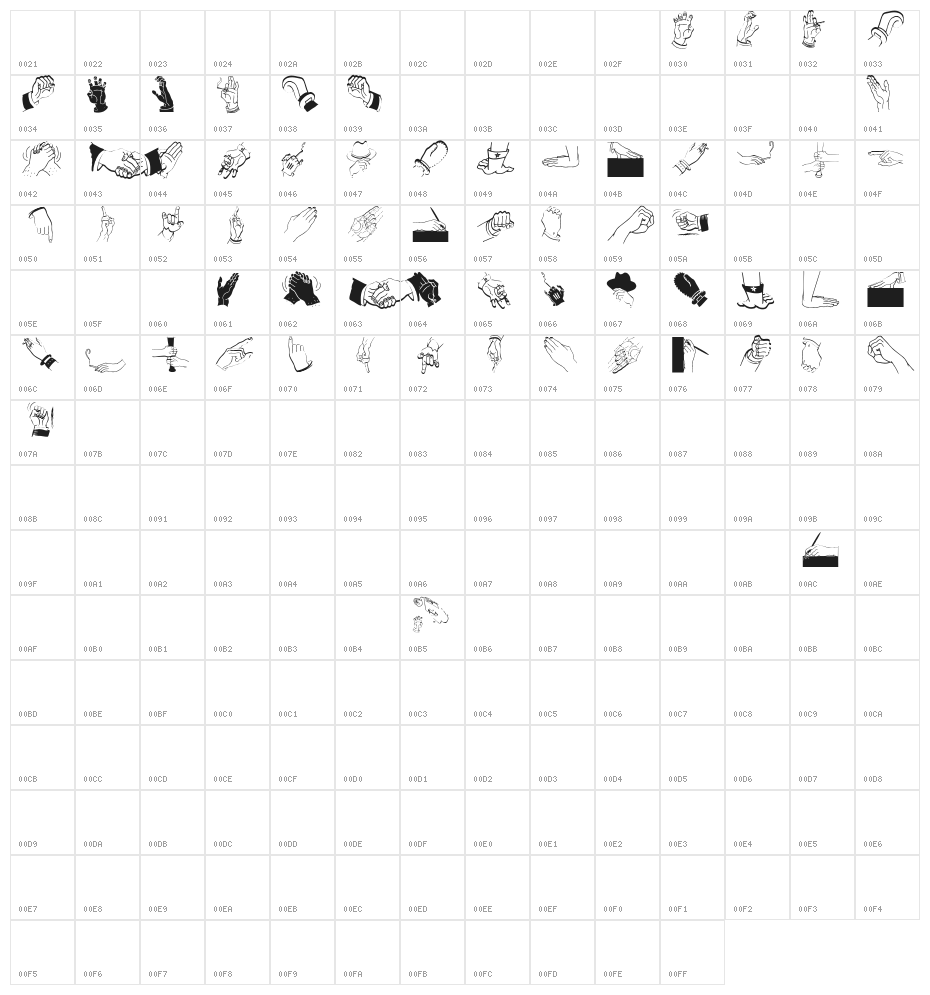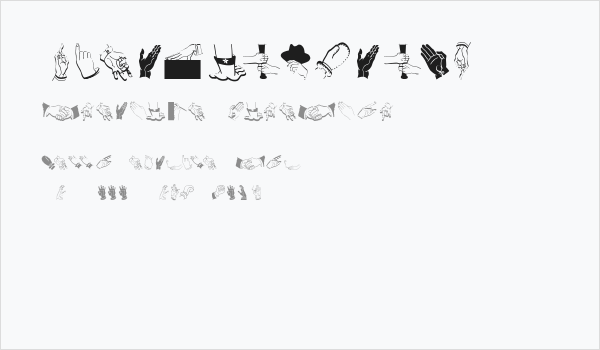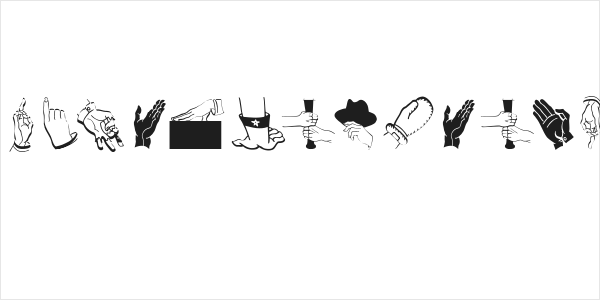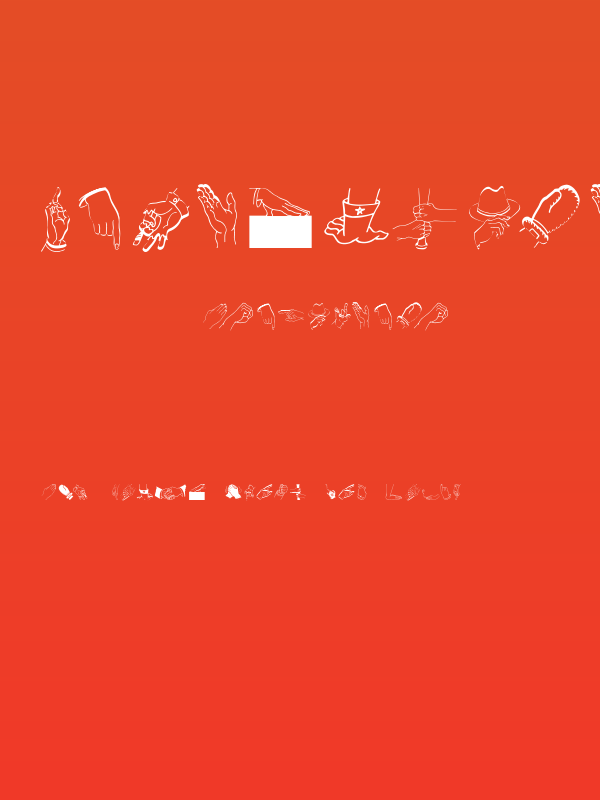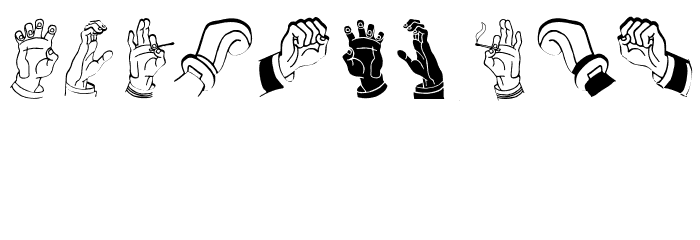
SpeakingHands Font
SpeakingHands Description
A decorative display font composed of illustrated hand gestures forming each character, with a mix of outlined and filled styles, varying line weights, and expressive poses. The glyphs are highly stylized and visually dynamic, making each letter unique and artistic.
| Overall Style | Decorative, Artistic, Playful |
| Use Case | Headlines, Logos, Posters, Artistic projects |
| Proposed Projects | Posters, album covers, event branding, creative logos, editorial headlines, art projects. |